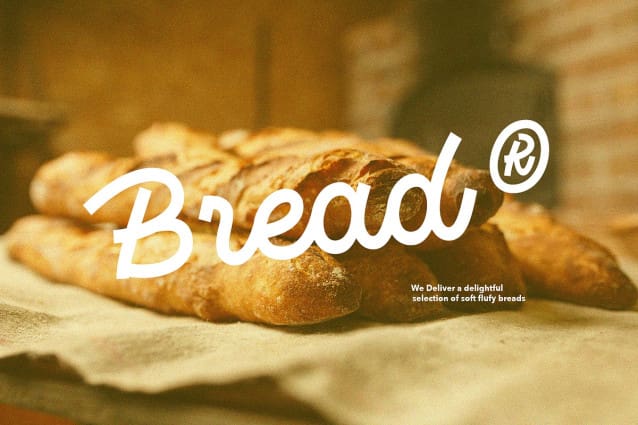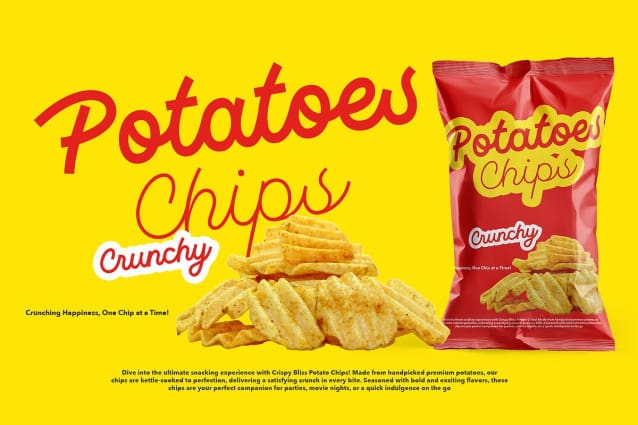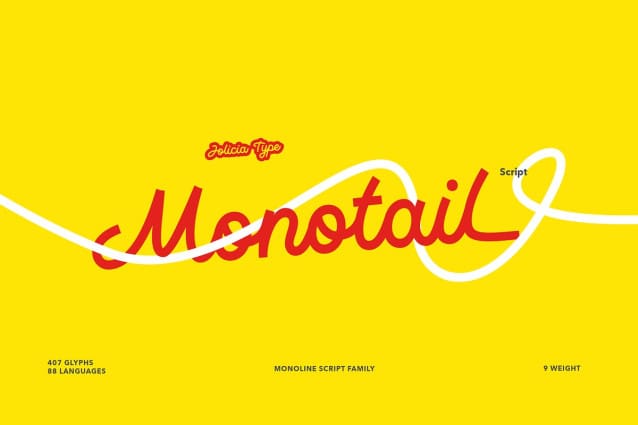
Monotail Monoline Font
Monotail Monoline Font, a monoline font family designed by Laire Banyu Sandi. With 9 distinct weights ranging from Thin to Black, this font stands out for its clean, consistent strokes and meticulous attention to detail, making it an essential choice for modern typography enthusiasts.
Monotail Monoline Font is the epitome of monoline elegance. Its evenly weighted strokes create a seamless flow, ensuring a contemporary and polished look for every letterform. The precision in its design reflects Laire’s dedication to creating a typeface that is not only visually stunning but also versatile in its application.
Monotail Monoline Font balances simplicity and sophistication, making it ideal for both minimalist and dynamic designs. Its clean monoline structure ensures readability while maintaining a distinct personality, making it suitable for both formal and playful projects.
Whether you’re a graphic designer, brand developer, or content creator, Monotail Script offers the versatility and quality you need to make a lasting impression.